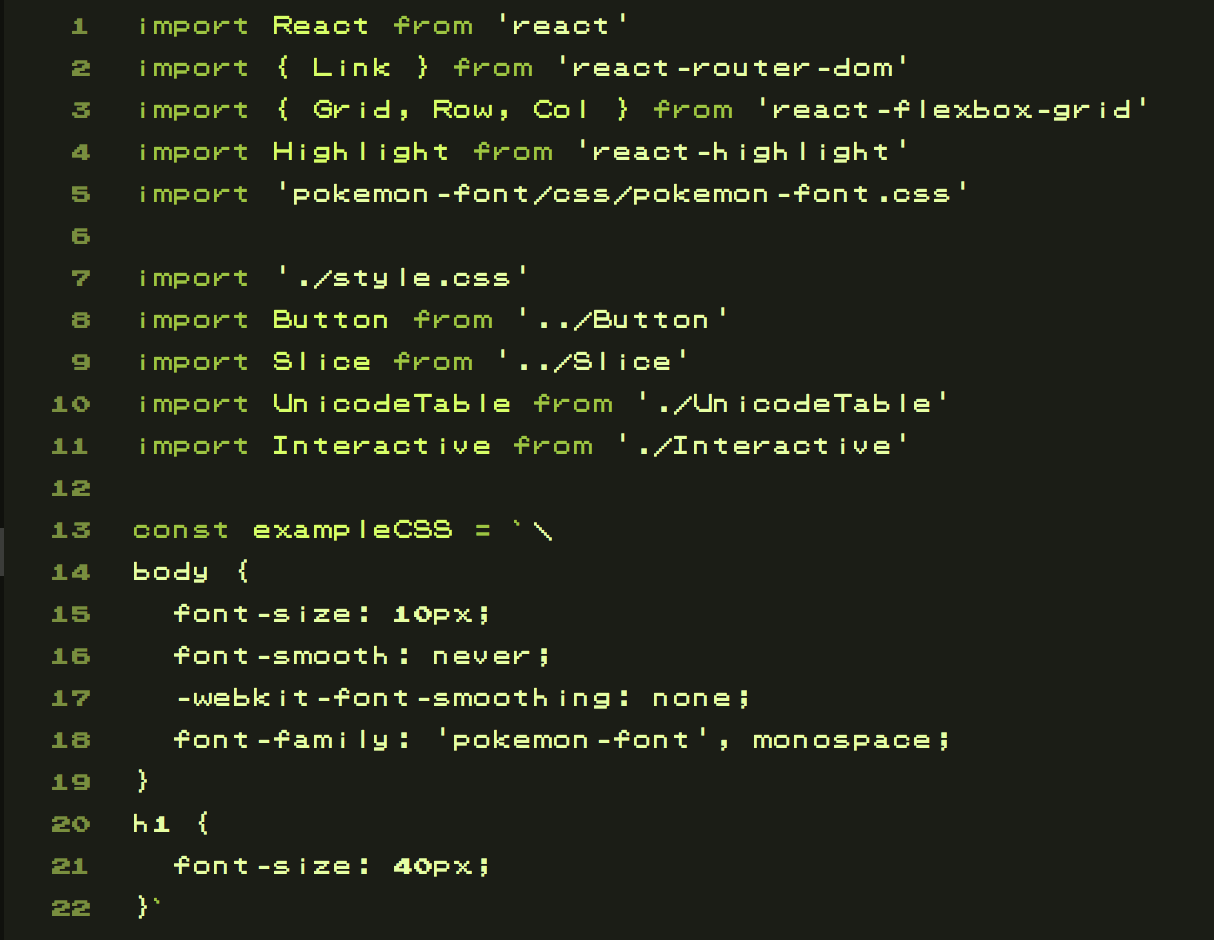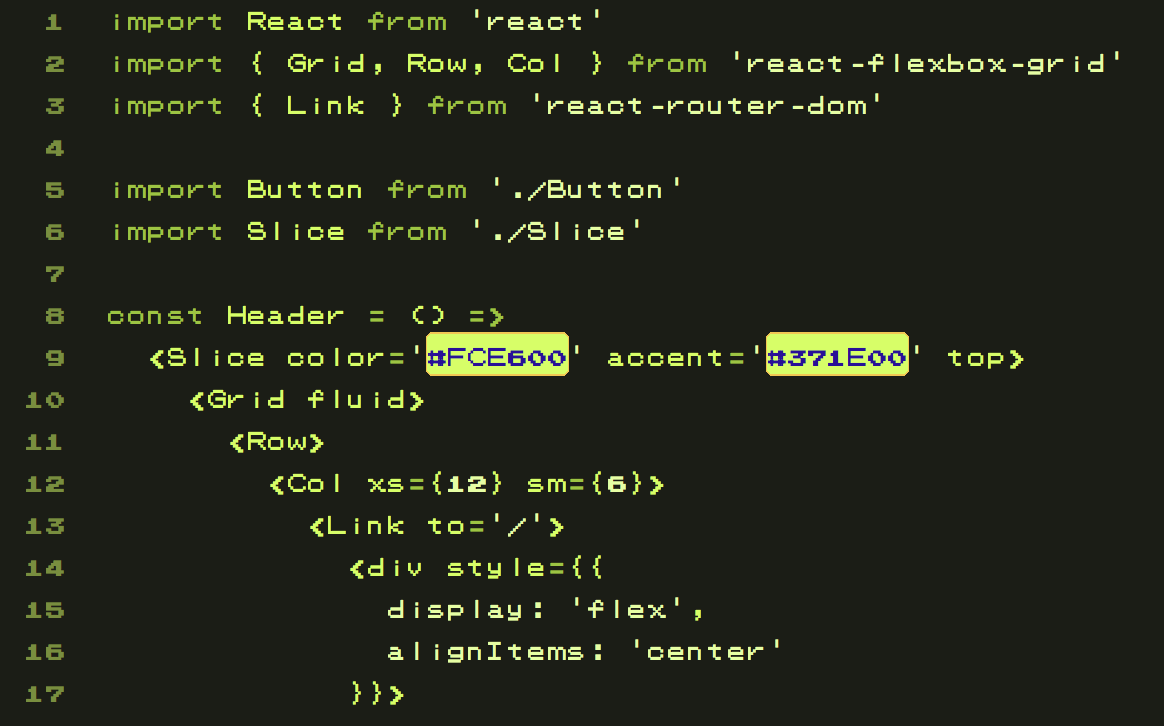
pokemon-font
pokemon-font is a monospaced font inspired by the GAMEBOY style, featuring over 500 characters and UTF-8 extended support. It is designed for developers and designers looking for a nostalgic, pixel-art style font suitable for coding and creative projects.
Monospaced
Utf8 Support
Extended Character Set